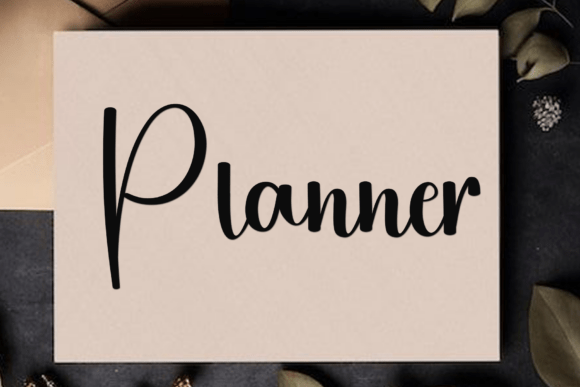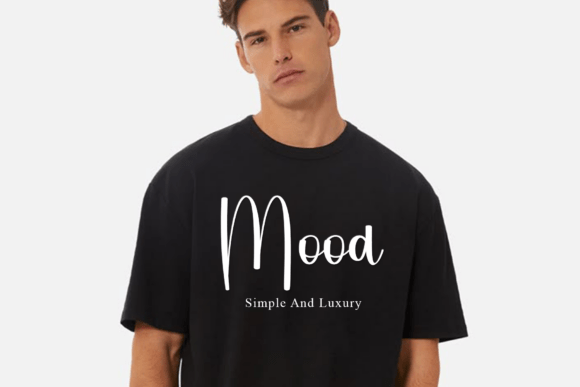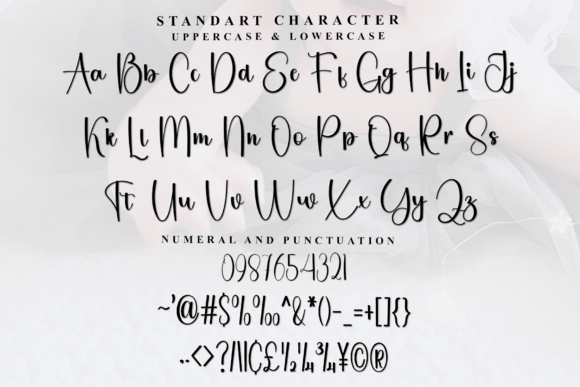
Introduction to Chill Birthday Font
Do you remember the excitement of planning a birthday party as a child? The anticipation of decorating the room with colorful balloons, wrapping gifts with sparkly paper, and crafting a heartfelt card for the birthday boy or girl? Those were the moments that sparked our creativity and filled our hearts with joy. As designers, we’re always on the lookout for the perfect typography to capture that same magic in our projects.
That’s where the Chill Birthday Font comes in – a festive and merry typeface that embodies the spirit of the holiday season. This high-quality font is a design resource that will elevate your creative projects, adding a touch of whimsy and enchantment to your words. With its decorative elements and transparent background, it’s perfect for designing greeting cards, gift tags, and holiday-themed projects that require a little extra sparkle.
Key Features of Chill Birthday Font
- Unique and playful design perfect for a high quality creative project.
- Features a bold and cursive script, ideal for birthday invitations, party decorations, and other celebratory designs.
Honest Review: Chill Birthday Font
As a designer, I’m always on the lookout for unique and high-quality design resources to elevate my creative projects. Recently, I stumbled upon the Chill Birthday Font, and I’m excited to share my thoughts on this versatile font.
- Unique, cursive design that adds a touch of personality to any project
- Works well for birthday invitations, party decorations, and other festive projects
- Not suitable for formal or professional projects, due to its casual, playful design
- May not be as versatile for non-festive projects, as it’s specifically designed for birthday themes
Overall, I’m impressed with the Chill Birthday Font’s unique design and high-quality production. While it may have some limitations, it’s an excellent addition to any designer’s toolkit for creative projects that require a fun, festive touch.
Design Tips
For the most out of the Chill Birthday Font, use it on a transparent background to give your design a clean and modern look. Experiment with different font sizes and colors to add emphasis to your text. You can also pair it with other fonts to create a unique design resource.
The Chill Birthday Font is perfect for birthday invitations, social media posts, and party decorations. Its fun and playful style makes it ideal for any celebration. You can also use it in branding materials, such as business cards and brochures, to add a touch of personality.
Alternatives to Chill Birthday Font
Pacifico is a beautiful, high-quality serif font that is perfect for creative projects requiring a touch of elegance. It features a transparent background and a free download option, making it an ideal design resource for designers.
Use Pacifico when you need a sophisticated, yet approachable font for your design project. It compares well to Chill Birthday Font in terms of its elegant and refined feel, but lacks the playful, casual vibe of the original font.
Great Vibes is a high-quality, handwritten font that exudes a carefree and creative spirit. It’s perfect for designs that require a touch of whimsy and fun, and can be easily customized to fit your design needs.
Use Great Vibes when you need a font that adds a playful, energetic feel to your design project. It compares well to Chill Birthday Font in terms of its casual, laid-back vibe, but has a more dynamic and expressive quality to it.
Lato is a modern sans-serif font that is perfect for designs that require a clean, sophisticated look. It features a transparent background and a free download option, making it a great design resource for designers.